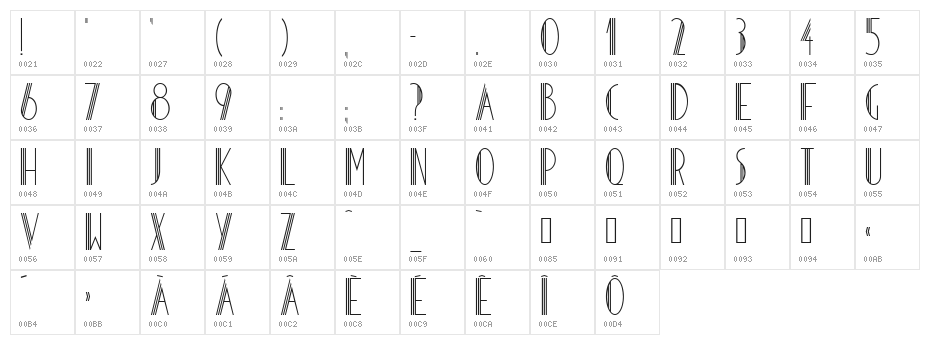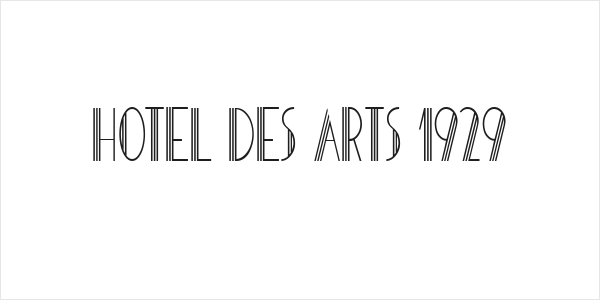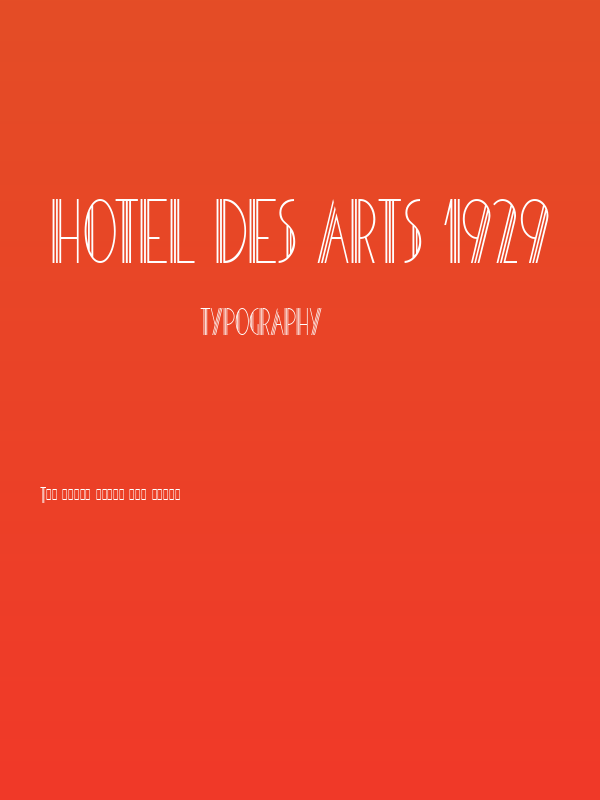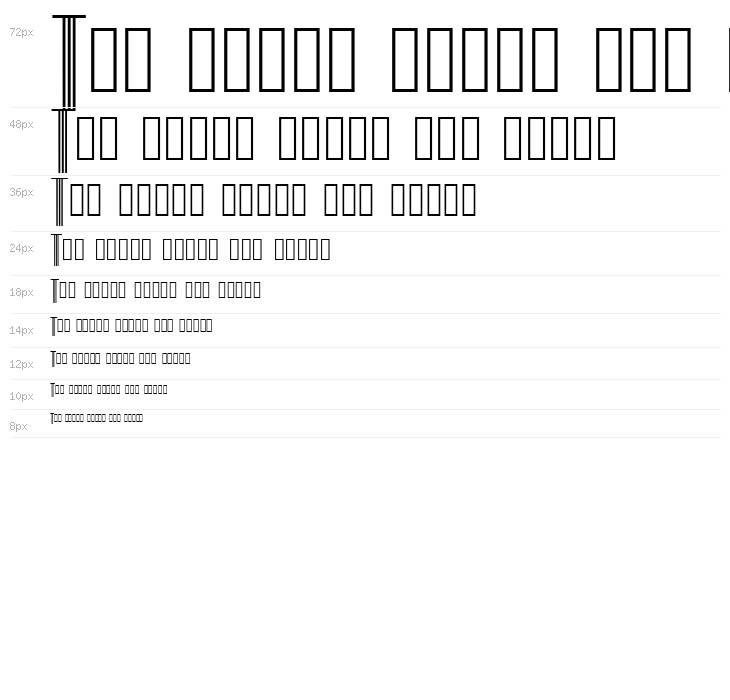
HOTEL DES ARTS 1929 Font
HOTEL DES ARTS 1929 Description
This font features a highly decorative and artistic style, characterized by its elongated and narrow letterforms. The vertical lines are prominent, creating a sense of height and elegance. The design incorporates a unique blend of Art Deco influences, with geometric shapes and a rhythmic pattern of lines that give it a sophisticated and vintage feel. The uppercase and lowercase letters maintain a consistent style, with the numerals and special characters following the same aesthetic. This font is ideal for projects that require a touch of classic elegance and artistic flair.